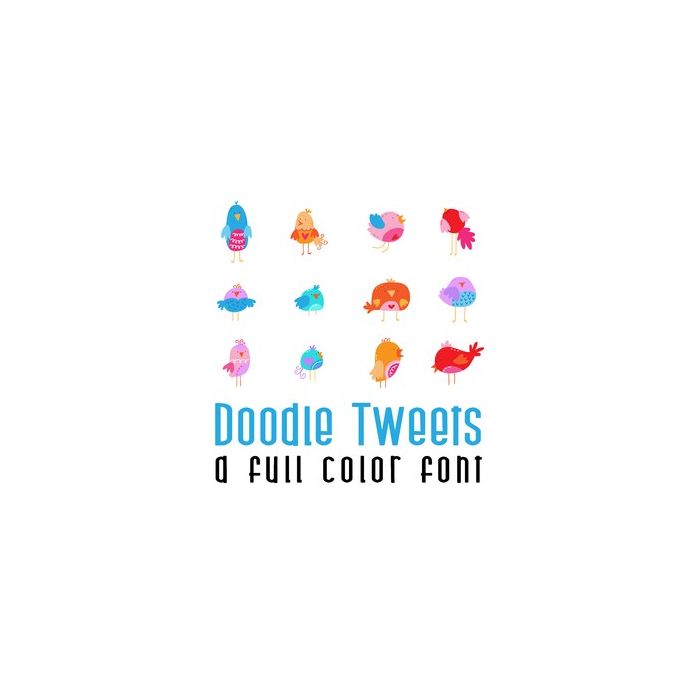
This adorable full-color doodlebat font features 26 doodle style birds. Perfect for cards, crafts, gifts, decor, scrapbook pages, planner stickers, and more!